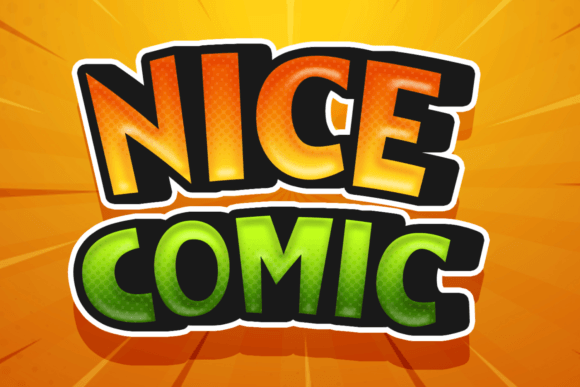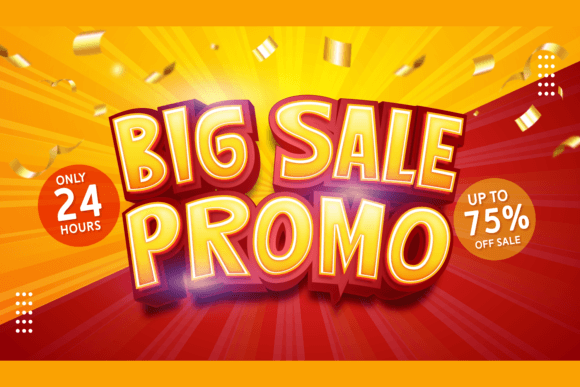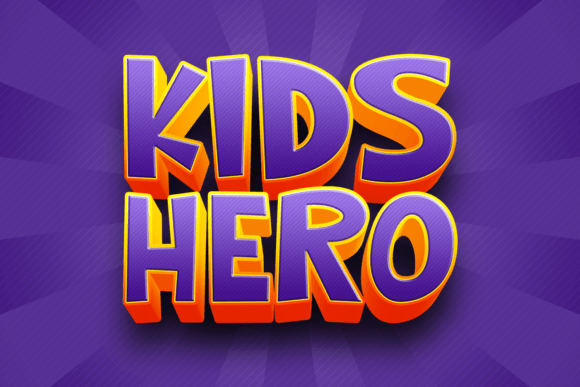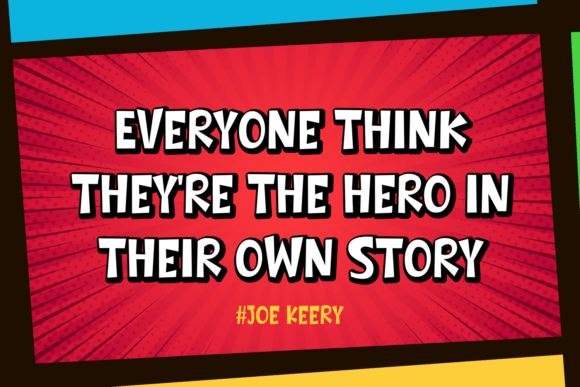
Nice Comic Font: A Bold & Playful Display Font for Headlines
About the Nice Comic Font
From logos to headlines, the Nice Comic Font is the perfect choice for making a lasting impression. Nice Comic is a comic display font that is fun, playful, and perfect for adding a bit of humor to any design. It features bold, rounded letters, with a bit of extra whimsy. Perfect for headlines, posters, and more!
Its bold, rounded forms make it ideal for headlines, posters, and packaging where a playful, approachable feel is desired. Think children’s books, playful branding for food products, or eye-catching event posters. However, its low x-height and relatively large letterforms make it unsuitable for body text or UI elements where readability is paramount.
Nice Comic’s friendly personality pairs well with clean sans-serif fonts like Open Sans for body copy, creating a strong contrast between playful headline and easily readable text. Alternatively, a more geometric sans-serif such as Futura would offer a modern, sophisticated counterpoint. For a more whimsical feel, consider pairing it with a handwritten script font, but keep the script usage limited to smaller elements to avoid visual overload.
The font’s overall character is best described as friendly and bold, conveying energy and approachability. It’s well-suited for brands targeting a younger demographic or projects requiring a lighthearted, attention-grabbing aesthetic.
Nice Comic Font Example